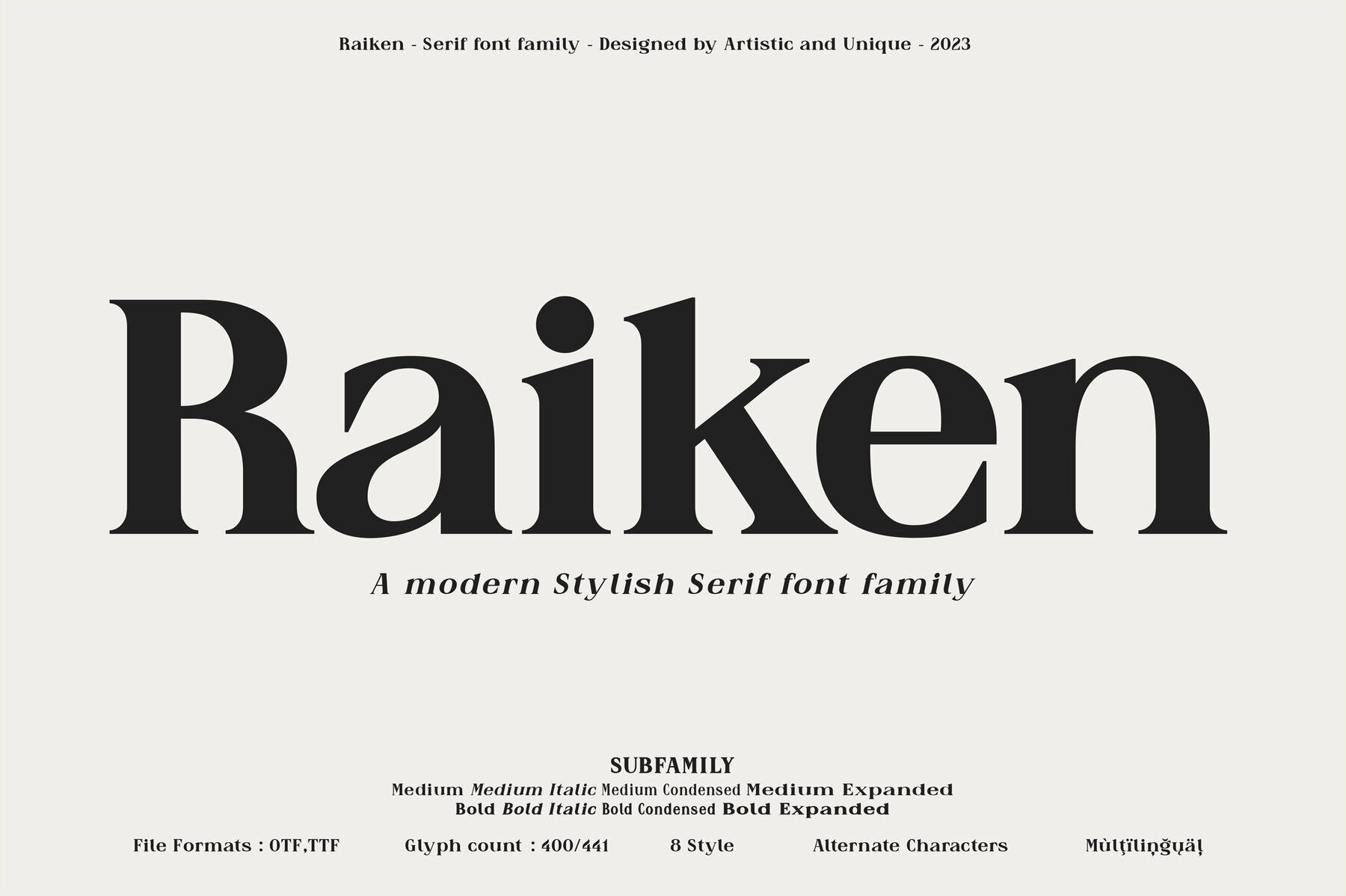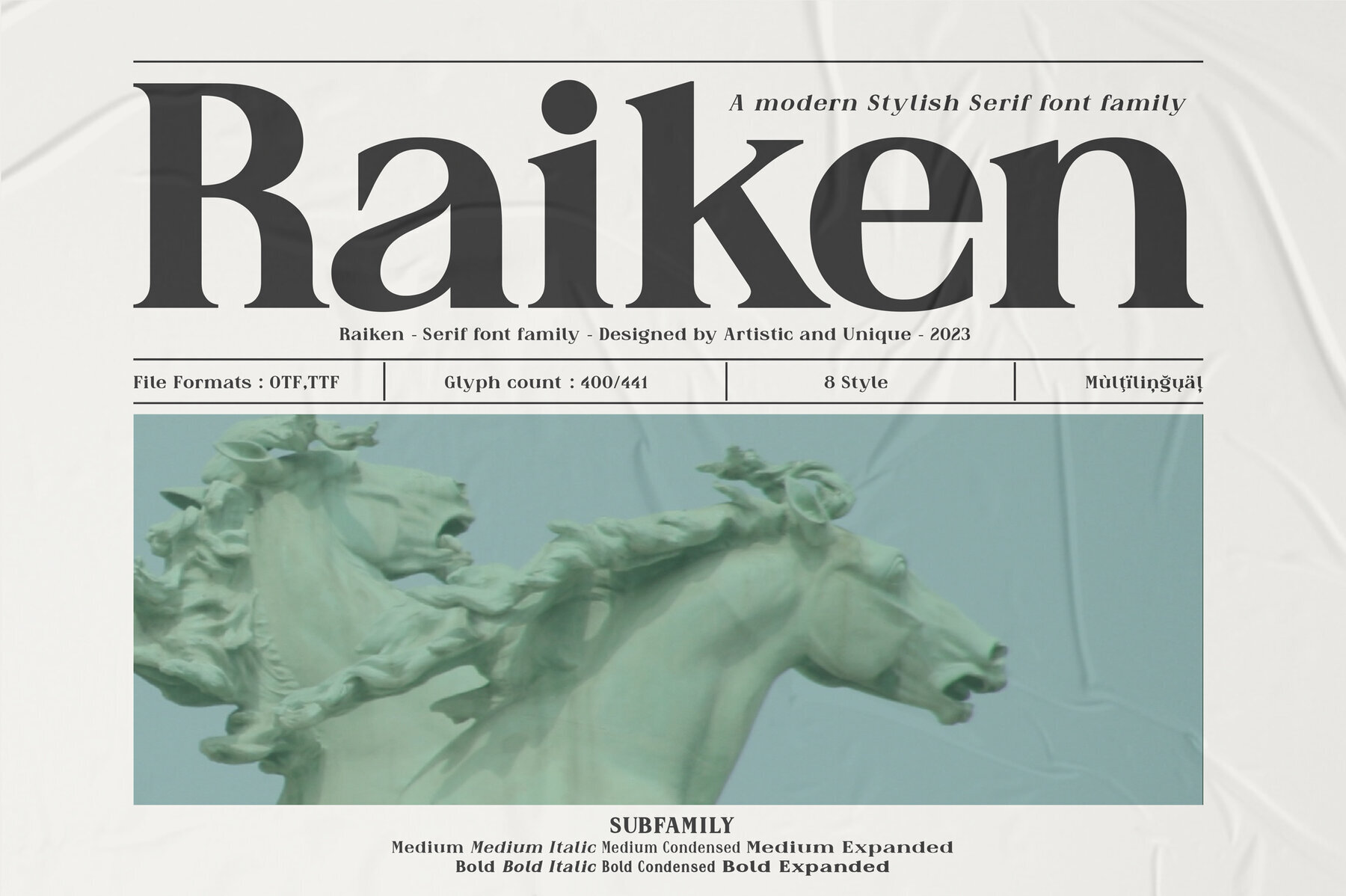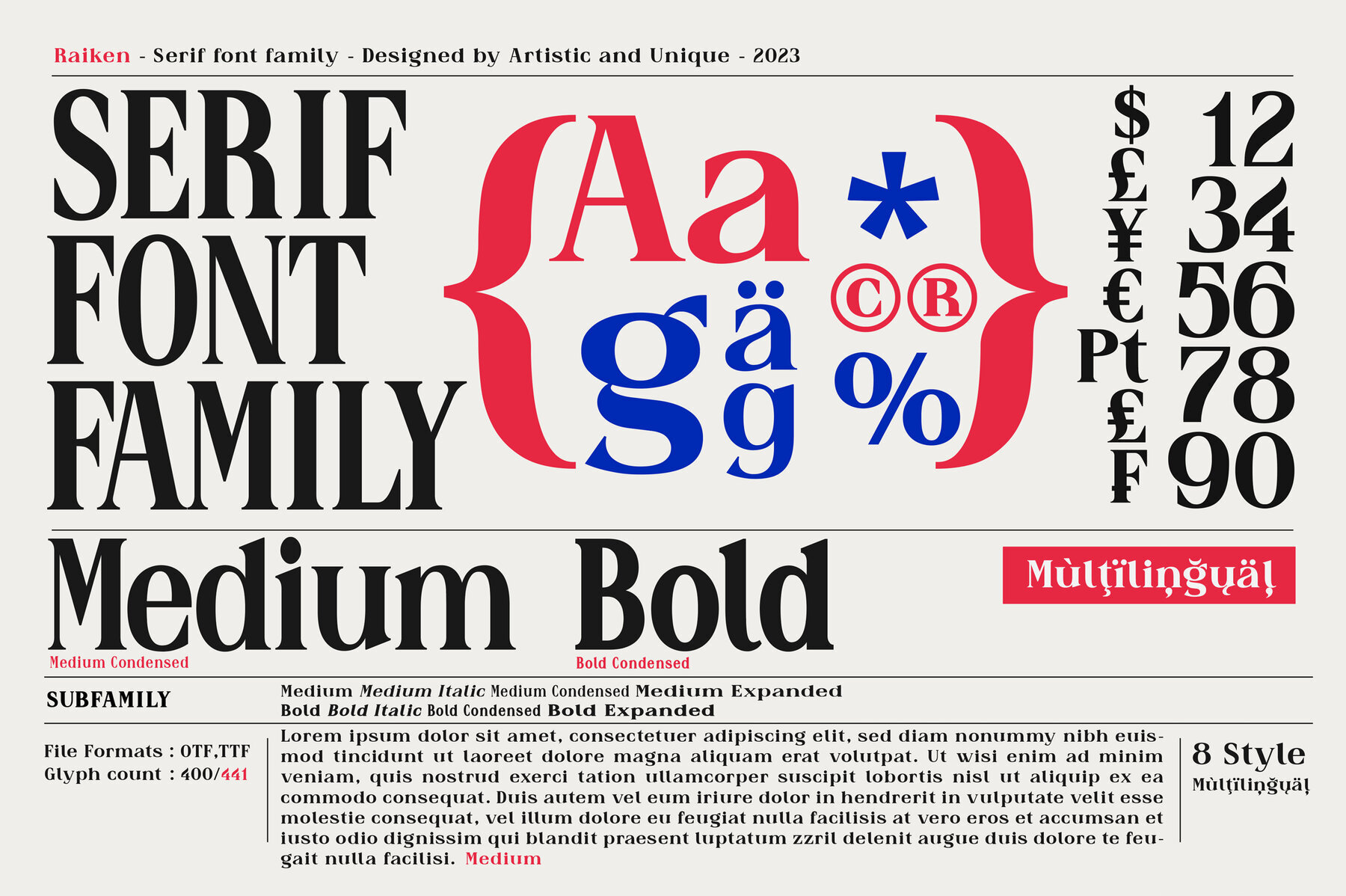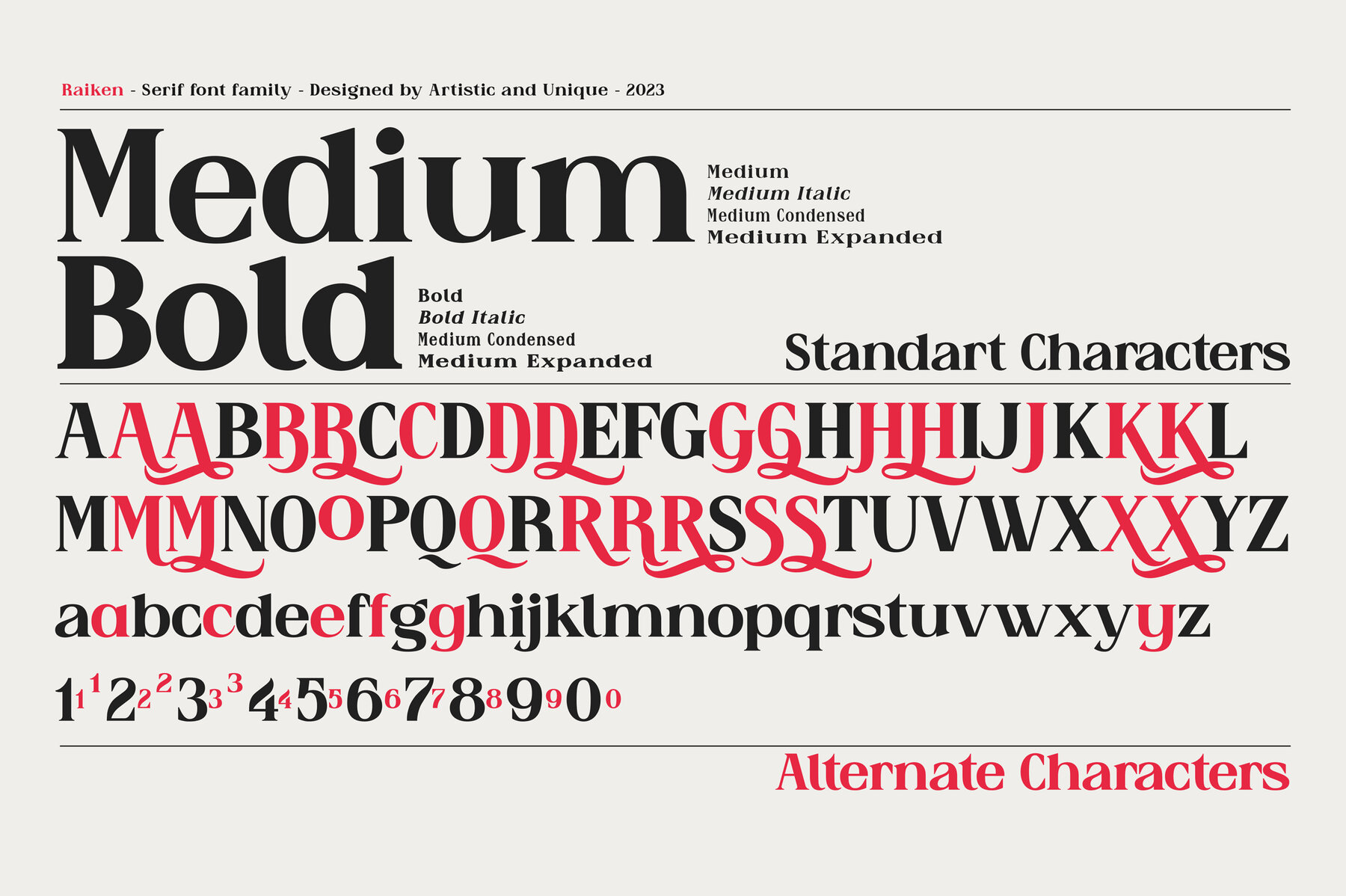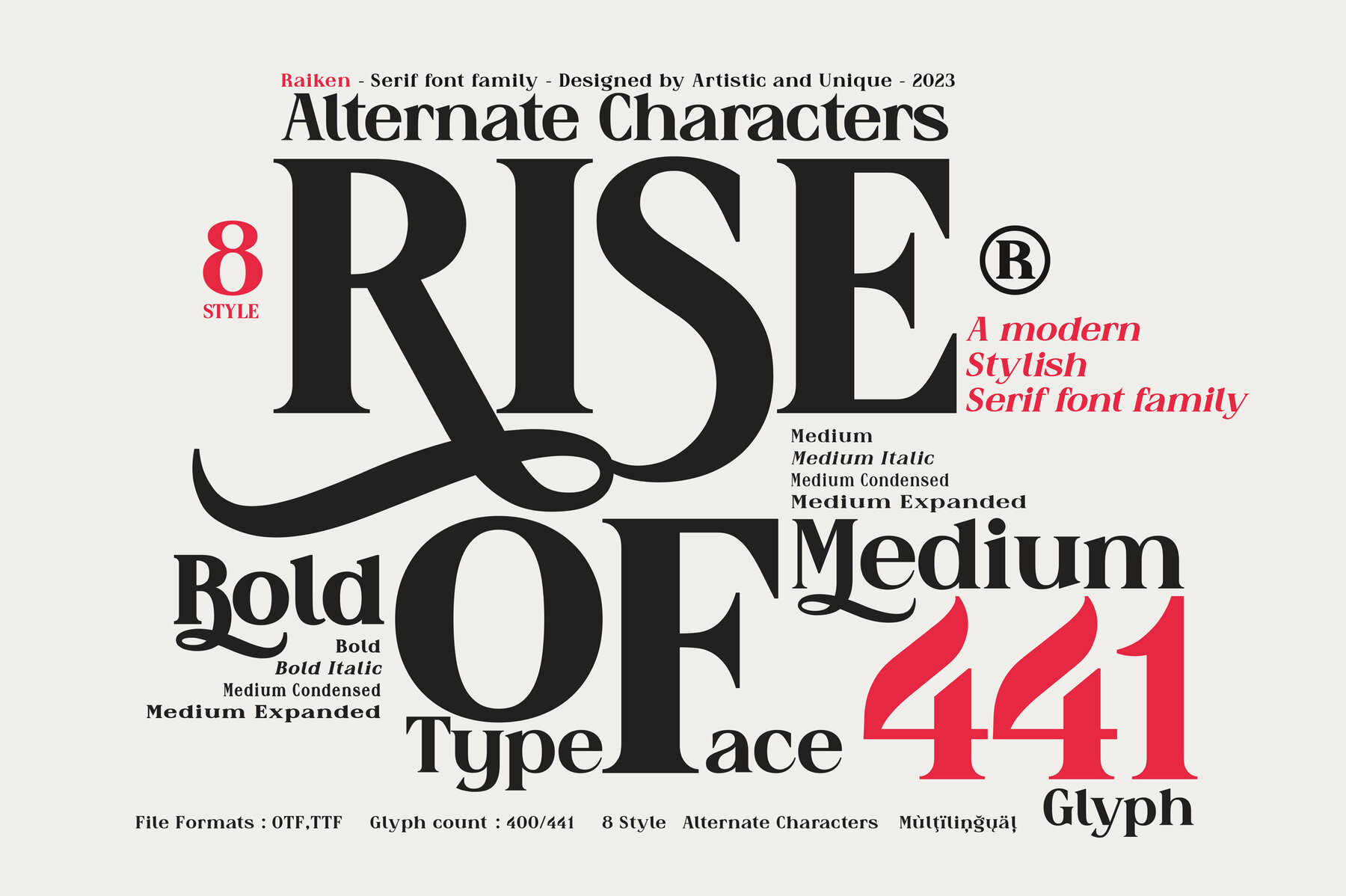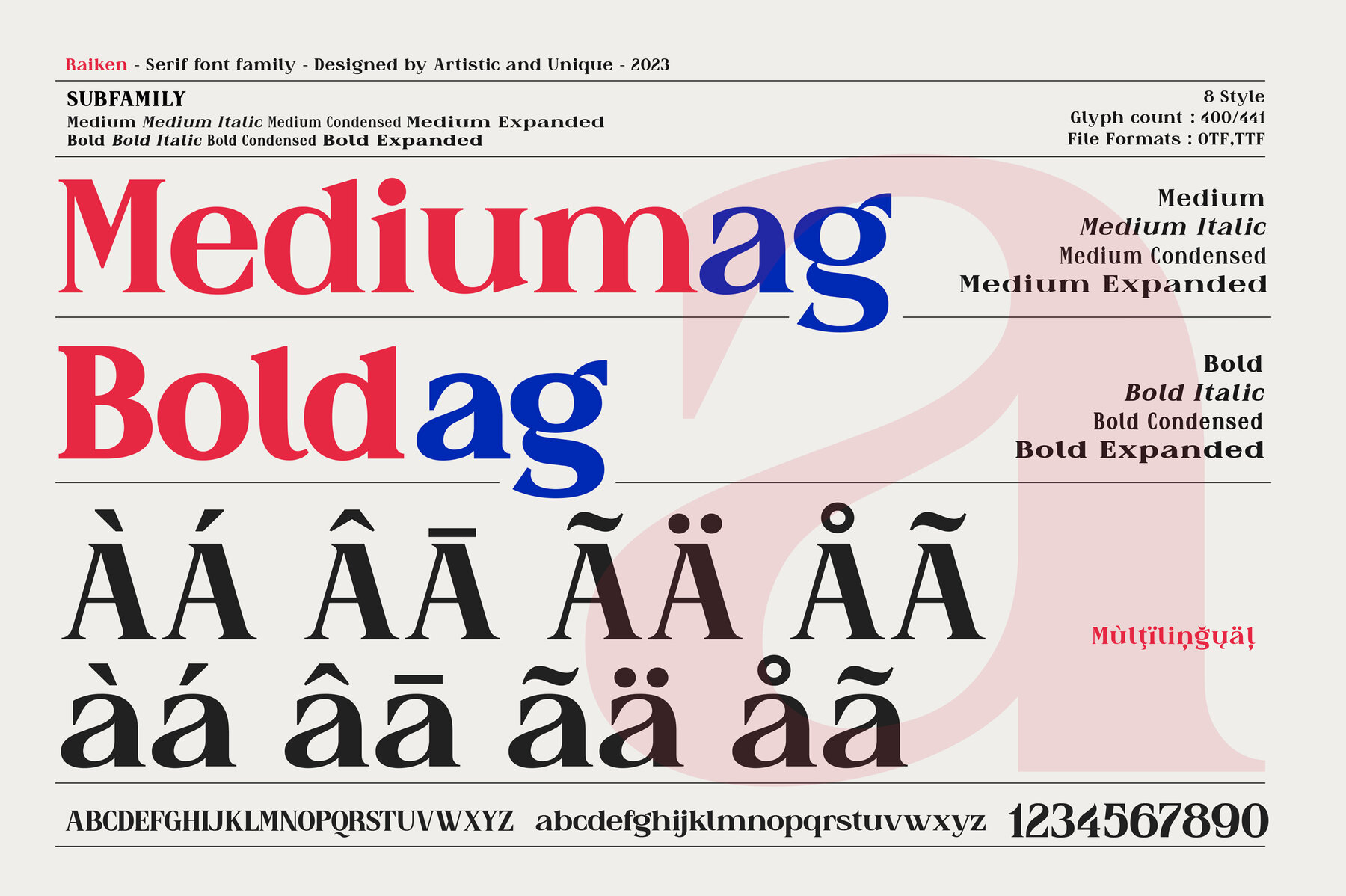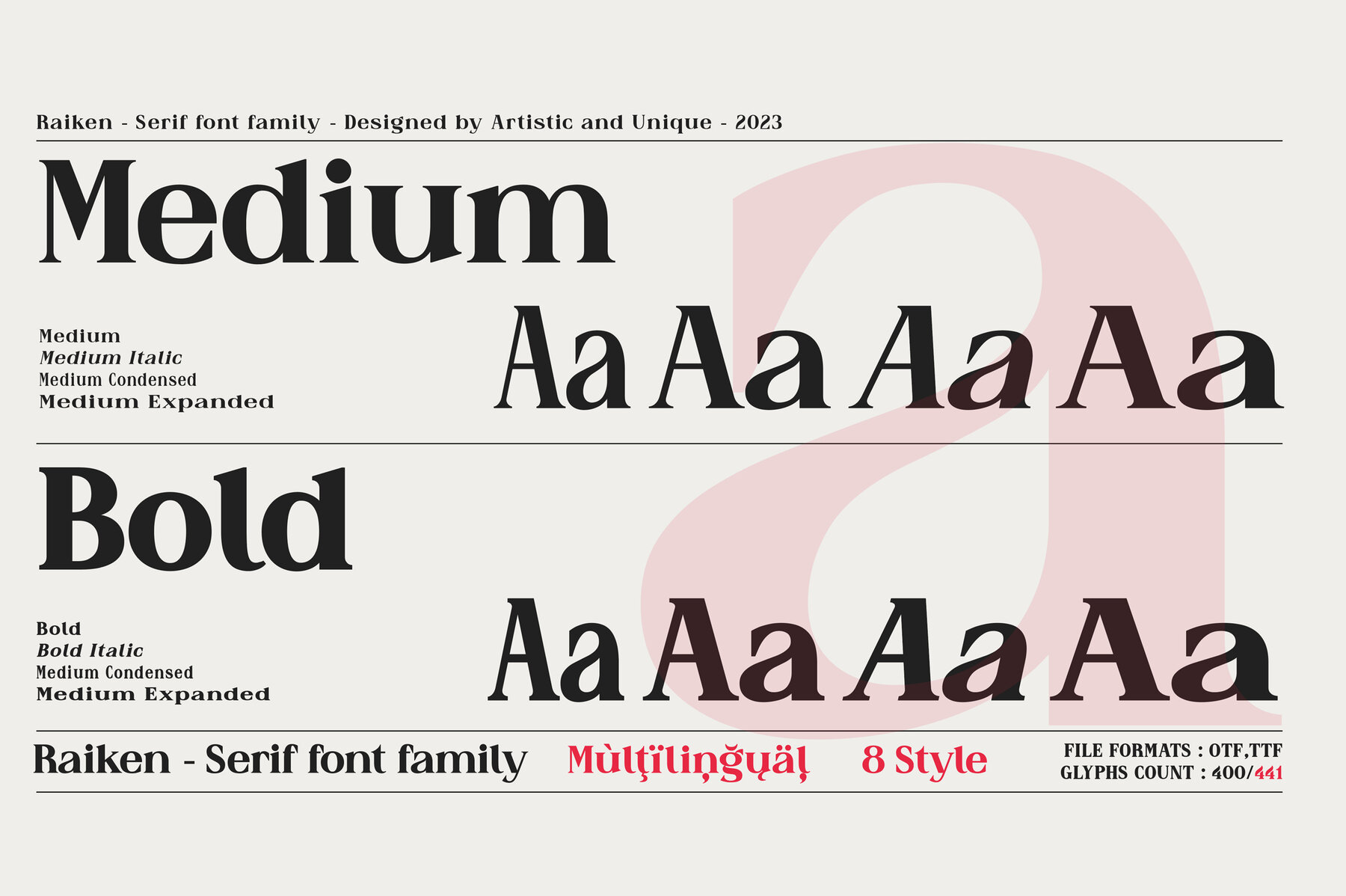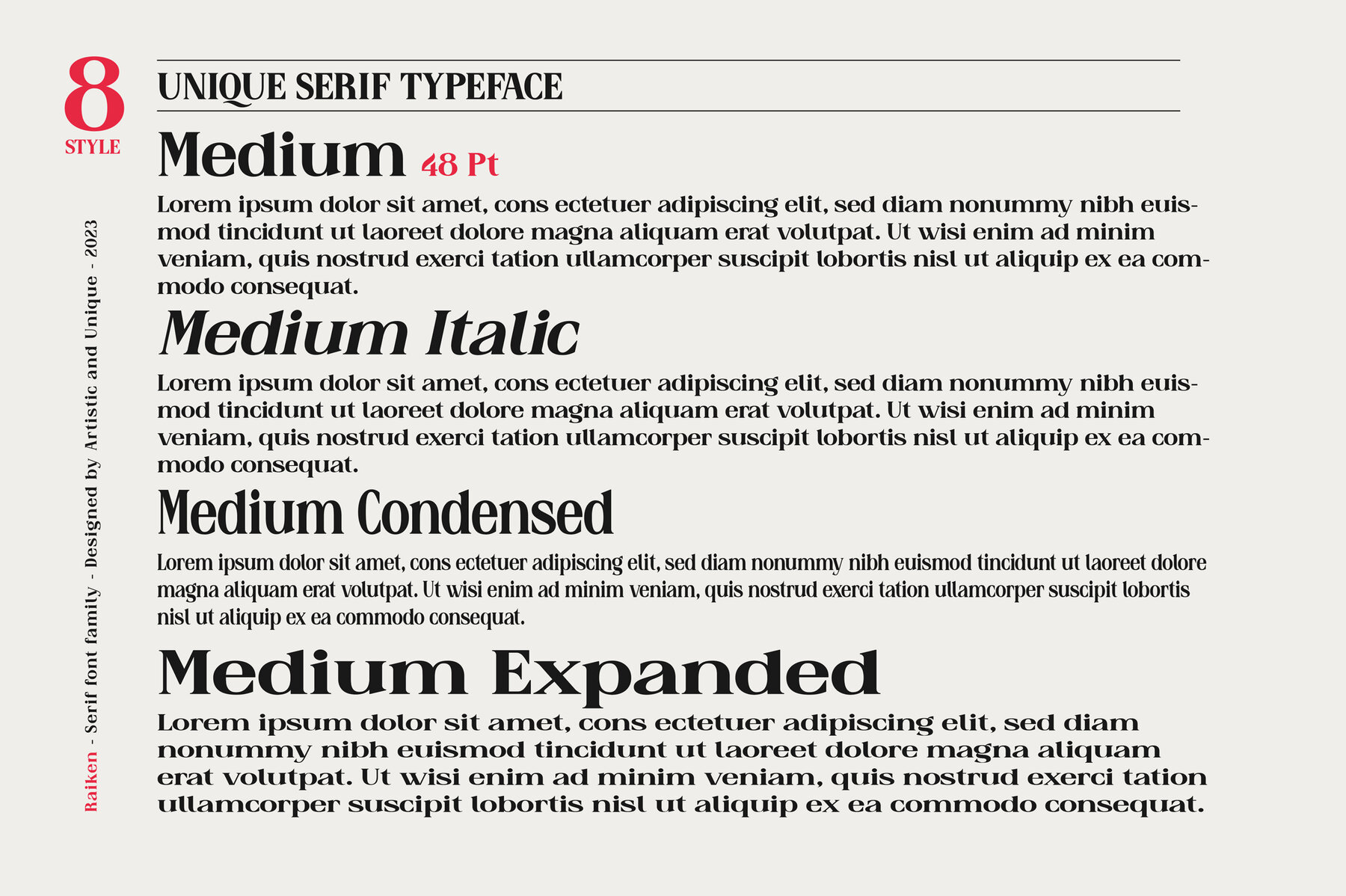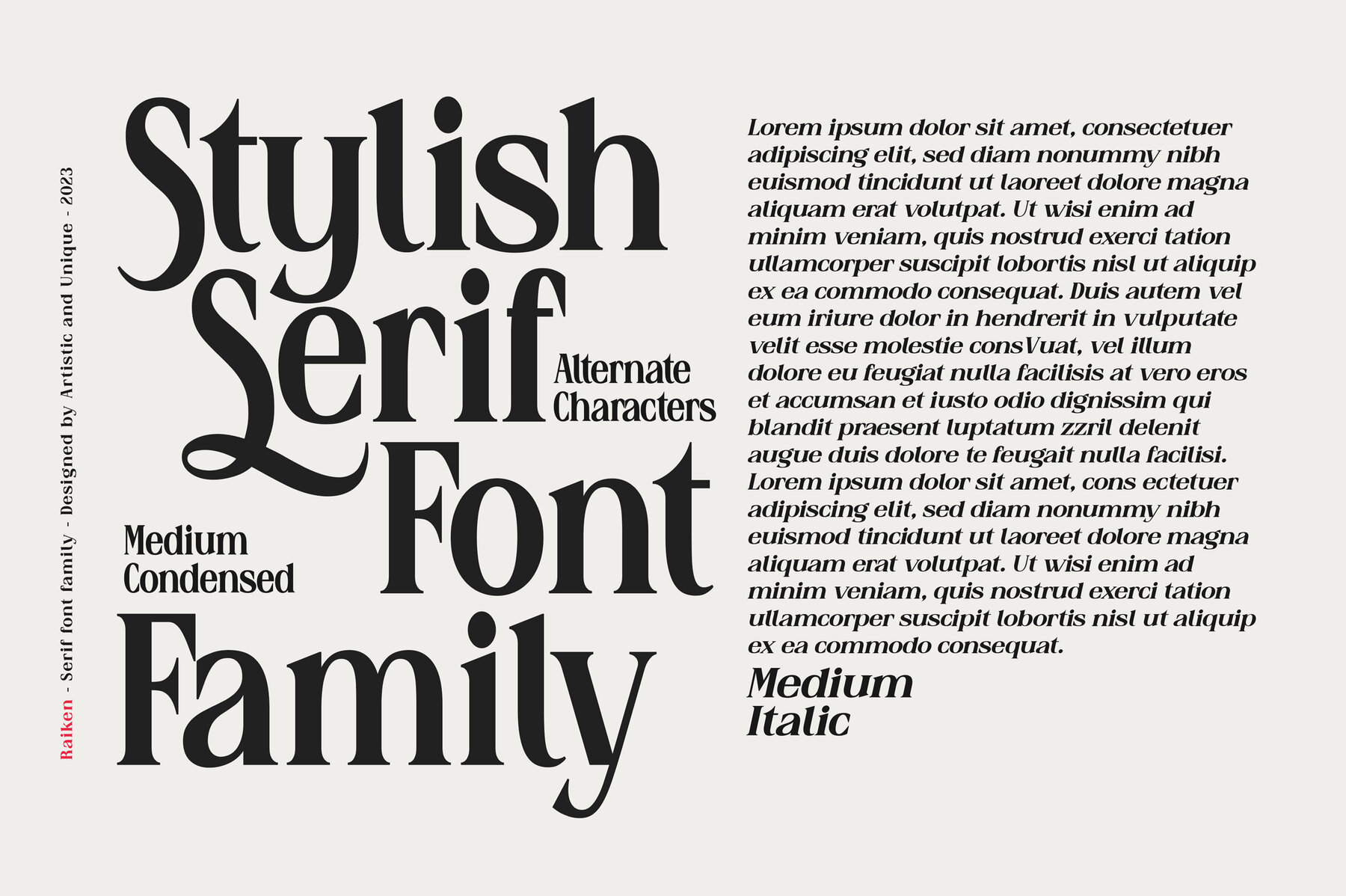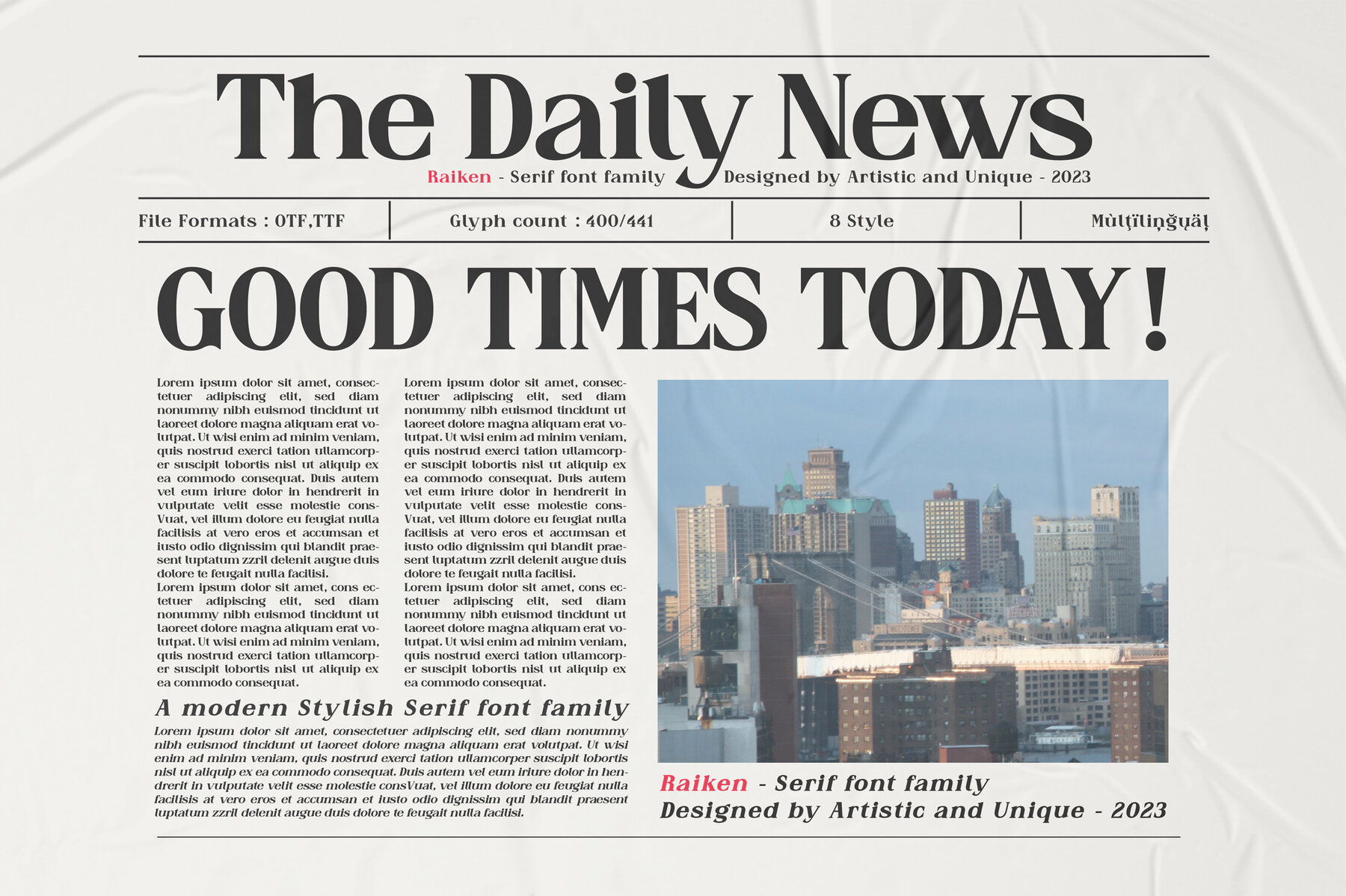
Raiken Font
Raiken is a powerful serif font family designed to bring sophistication to your projects. Encompassing 8 distinct styles, this font family offers a versatile array of design options, perfect for elevating your typography. Multilingual support and 441 glyphs broaden its usability, ensuring your creative vision isn't limited by language constraints. From elegant typographic compositions in magazines to striking logos in branding, Raiken adapts seamlessly, offering refinement and flexibility. Whether you're working with sophisticated editorials or bold movie titles, this font family ensures your text engages and captivates.Raiken Serif Font Family
Features and Applications